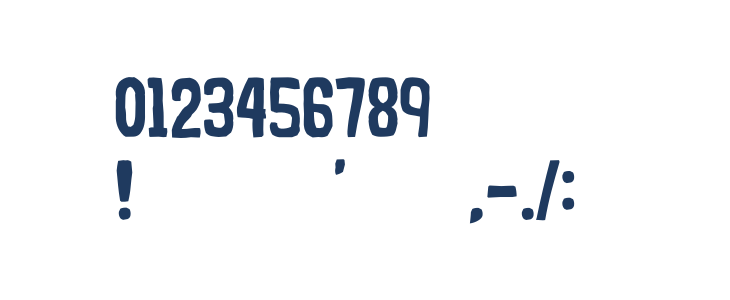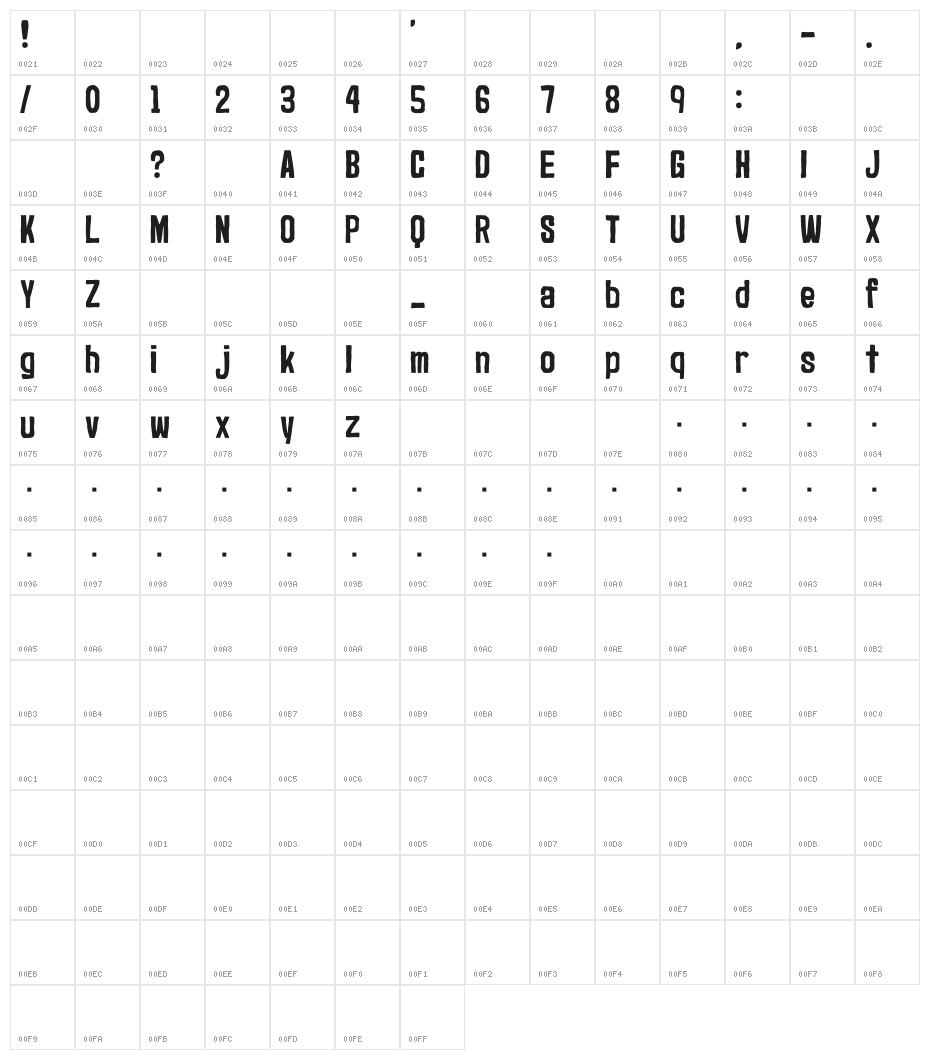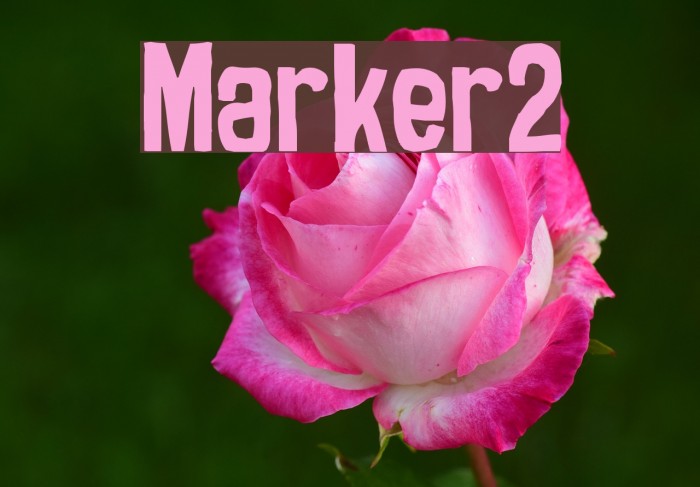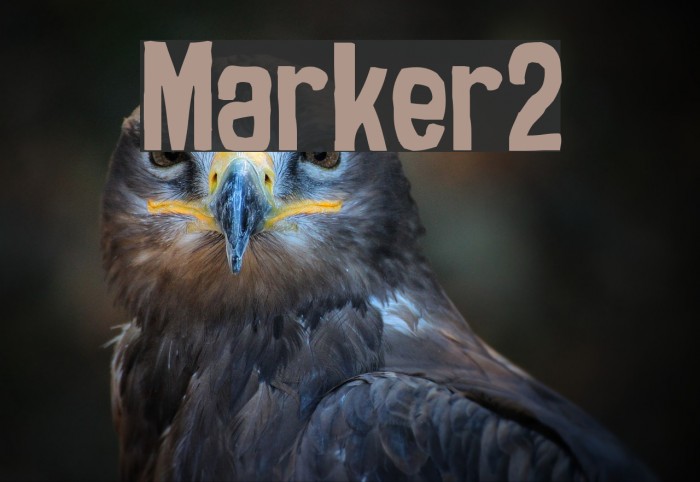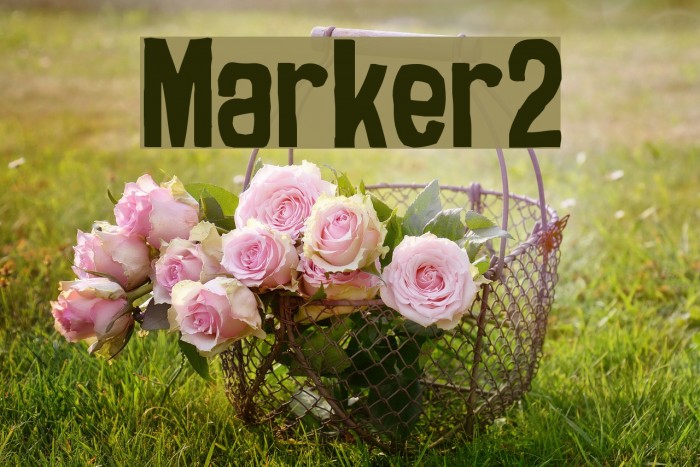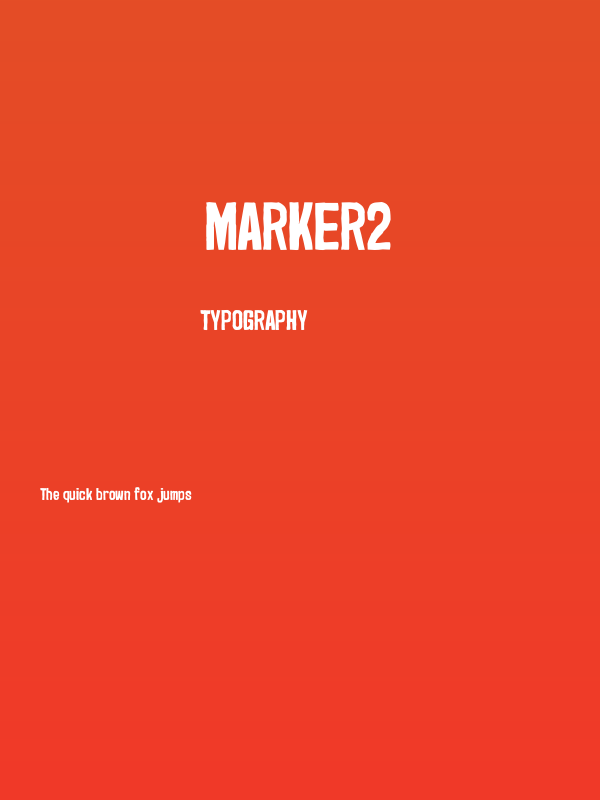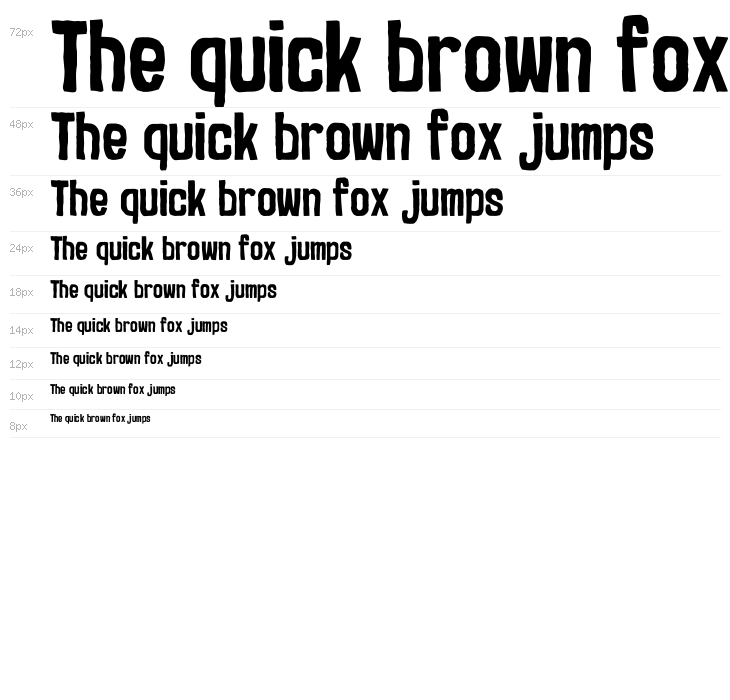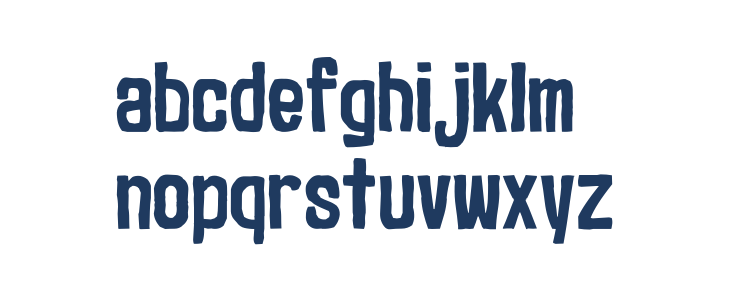
Marker2 Font
Marker2 Description
This font exhibits a bold and playful style, characterized by its thick, uneven strokes and slightly irregular shapes. The letters have a hand-drawn appearance, giving them a casual and informal feel. The uppercase and lowercase letters maintain a consistent weight, with a slight variation in width that adds to the font's quirky charm. The numerals and special characters follow the same design principles, ensuring a cohesive look across all glyphs. This font's unique style makes it stand out, making it ideal for projects that require a touch of personality and creativity.
| Overall Style | Playful, Hand-drawn |
| Proposed Projects | Ideal for posters, children's books, creative branding, and playful packaging designs. |